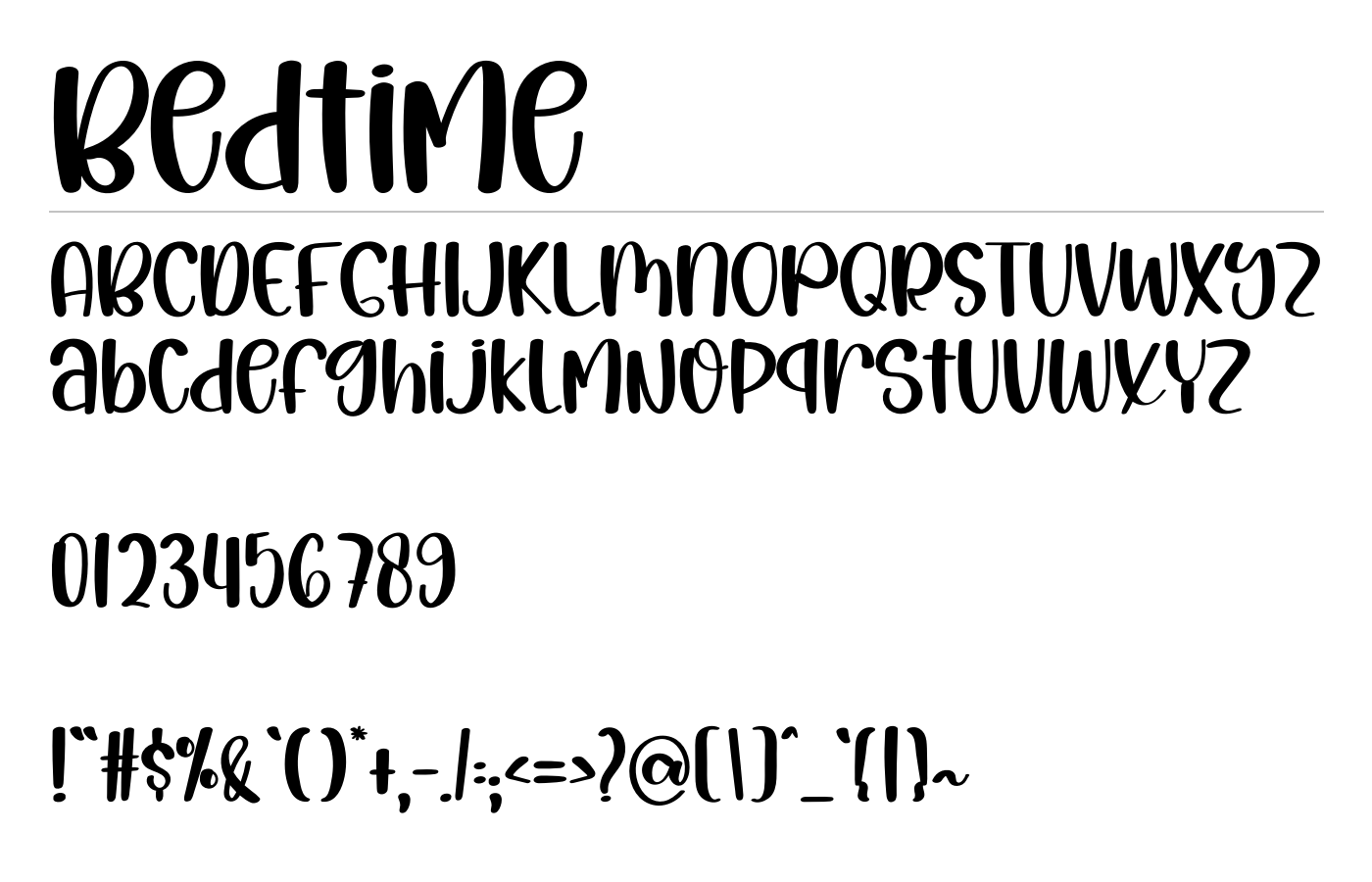
Bedtime Font is a playful and friendly handwritten script with a bold weight and tall, rounded letterforms that create a warm and inviting feel. Its irregular strokes and smooth curves give it a casual, approachable personality, making it perfect for children’s products, casual branding, and fun editorial projects. This font works especially well in headlines and logos where a lively, informal touch is desired.
Bedtime Font
About Bedtime Font